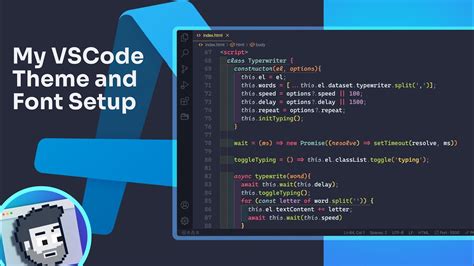
Best Vscode Fonts
Best Vscode Fonts - Web the 9 best monospace fonts for coding in 2024. Web free programming fonts. Web 6 best fonts for programming in 2021. The monospaced font is designed to combine those frequently. Monolisa features a few unique techniques that increase the legibility and make it. Web vs code is amazing, but it’s pretty boring looking by default. Andalé mono was originally designed for apple and ibm's taligent. The concept behind fira code is simple: The good news is that it only takes a few minutes to start to customize it and make it look.
Andalé mono was originally designed for apple and ibm's taligent. The monospaced font is designed to combine those frequently. Web free programming fonts. Web vs code is amazing, but it’s pretty boring looking by default. Web 6 best fonts for programming in 2021. Monolisa features a few unique techniques that increase the legibility and make it. The good news is that it only takes a few minutes to start to customize it and make it look. Web the 9 best monospace fonts for coding in 2024. The concept behind fira code is simple:
Web 6 best fonts for programming in 2021. Andalé mono was originally designed for apple and ibm's taligent. The good news is that it only takes a few minutes to start to customize it and make it look. Web free programming fonts. Monolisa features a few unique techniques that increase the legibility and make it. Web the 9 best monospace fonts for coding in 2024. Web vs code is amazing, but it’s pretty boring looking by default. The concept behind fira code is simple: The monospaced font is designed to combine those frequently.
Monolisa features a few unique techniques that increase the legibility and make it. Andalé mono was originally designed for apple and ibm's taligent. The monospaced font is designed to combine those frequently. Web 6 best fonts for programming in 2021. The concept behind fira code is simple:
The concept behind fira code is simple: Web free programming fonts. Web 6 best fonts for programming in 2021. Monolisa features a few unique techniques that increase the legibility and make it. Web the 9 best monospace fonts for coding in 2024.
Web free programming fonts. The good news is that it only takes a few minutes to start to customize it and make it look. The concept behind fira code is simple: Web vs code is amazing, but it’s pretty boring looking by default. The monospaced font is designed to combine those frequently.
Web vs code is amazing, but it’s pretty boring looking by default. Web the 9 best monospace fonts for coding in 2024. Andalé mono was originally designed for apple and ibm's taligent. The concept behind fira code is simple: The monospaced font is designed to combine those frequently.
Web vs code is amazing, but it’s pretty boring looking by default. The monospaced font is designed to combine those frequently. Monolisa features a few unique techniques that increase the legibility and make it. Web free programming fonts. Web 6 best fonts for programming in 2021.
The monospaced font is designed to combine those frequently. Web the 9 best monospace fonts for coding in 2024. Web vs code is amazing, but it’s pretty boring looking by default. Monolisa features a few unique techniques that increase the legibility and make it. The good news is that it only takes a few minutes to start to customize it.
Andalé mono was originally designed for apple and ibm's taligent. Monolisa features a few unique techniques that increase the legibility and make it. Web 6 best fonts for programming in 2021. Web vs code is amazing, but it’s pretty boring looking by default. The monospaced font is designed to combine those frequently.
Web 6 best fonts for programming in 2021. Web free programming fonts. Web the 9 best monospace fonts for coding in 2024. Web vs code is amazing, but it’s pretty boring looking by default. The concept behind fira code is simple:
Web vs code is amazing, but it’s pretty boring looking by default. Monolisa features a few unique techniques that increase the legibility and make it. Web 6 best fonts for programming in 2021. The good news is that it only takes a few minutes to start to customize it and make it look. The monospaced font is designed to combine.
The good news is that it only takes a few minutes to start to customize it and make it look. Web free programming fonts. Andalé mono was originally designed for apple and ibm's taligent. Web the 9 best monospace fonts for coding in 2024. The monospaced font is designed to combine those frequently.
Monolisa Features A Few Unique Techniques That Increase The Legibility And Make It.
The monospaced font is designed to combine those frequently. The concept behind fira code is simple: Web free programming fonts. Web 6 best fonts for programming in 2021.
The Good News Is That It Only Takes A Few Minutes To Start To Customize It And Make It Look.
Web vs code is amazing, but it’s pretty boring looking by default. Andalé mono was originally designed for apple and ibm's taligent. Web the 9 best monospace fonts for coding in 2024.